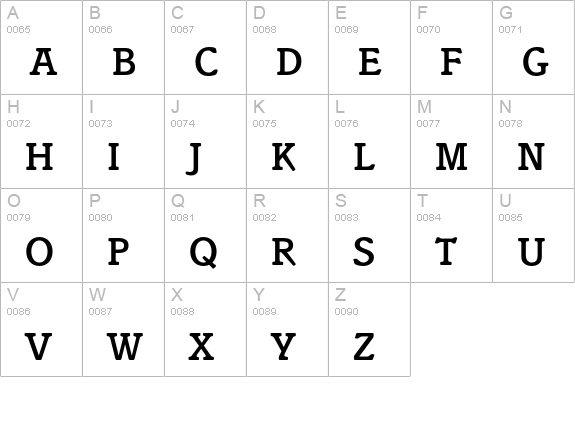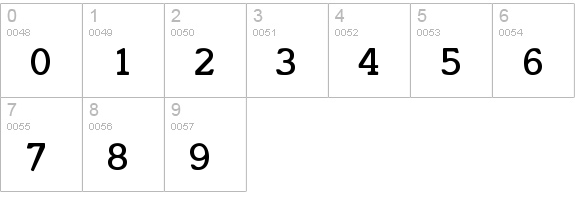
Italia Medium is a balanced, medium-weight variant in the Italia typeface family \xE2\x80\x94 well suited to sub-headlines, navigation, and balanced editorial work.
Italia Medium is a versatile and elegant font that exudes sophistication and timeless charm. Its clean and balanced letterforms make it perfect for a wide range of applications, from editorial design to branding and packaging. The medium weight of this typeface strikes the ideal balance between legibility and impact, making it suitable for both headlines and body text. One of the most remarkable features of Italia Medium is that it is available free of charge. You can easily download this font, along with its complete character set, at FontsMarket.com. This means that you can enjoy the beauty and functionality of Italia Medium without any financial constraints, allowing you to bring your creative visions to life without limitations. Whether you are a professional designer or an aspiring creative, Italia Medium will undoubtedly elevate your projects with its refined aesthetics and versatility. Its timeless appeal and freely available nature make it a valuable addition to any font library. So, why wait? Take advantage of this remarkable opportunity and enhance your designs with the elegance of Italia Medium today.